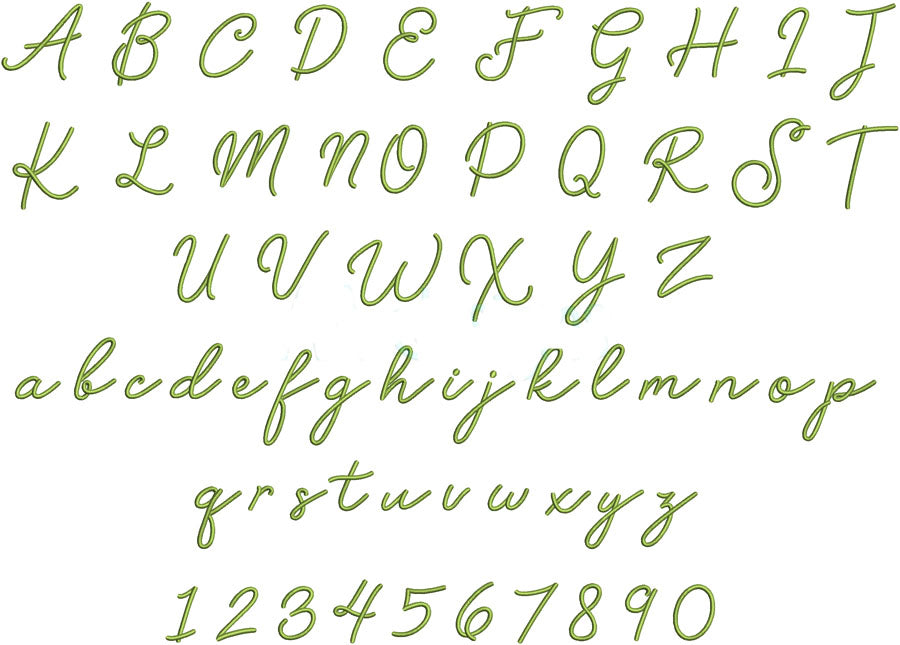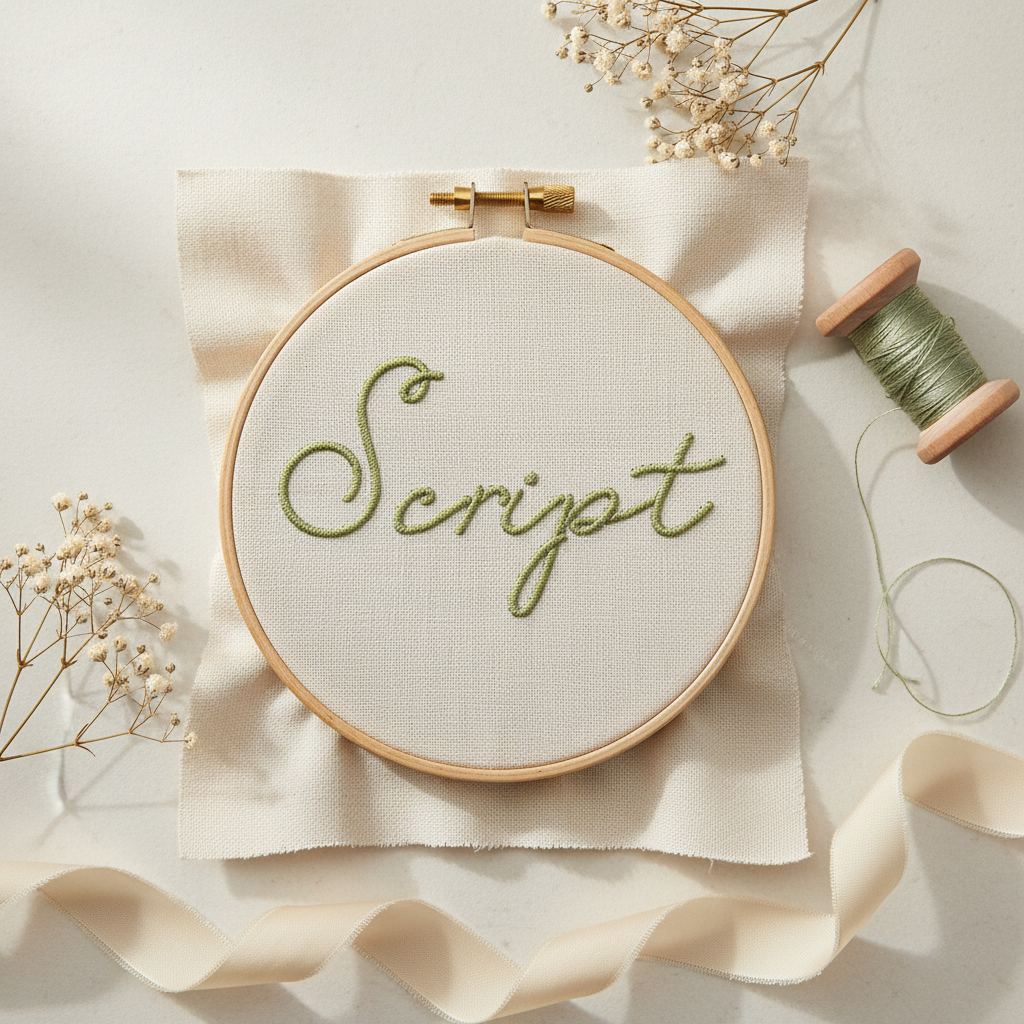
Bring elegant, handwritten charm to your embroidery projects with this Script Embroidery Font. It is ideal for monograms, names, personalized gifts, apparel, and keepsakes.